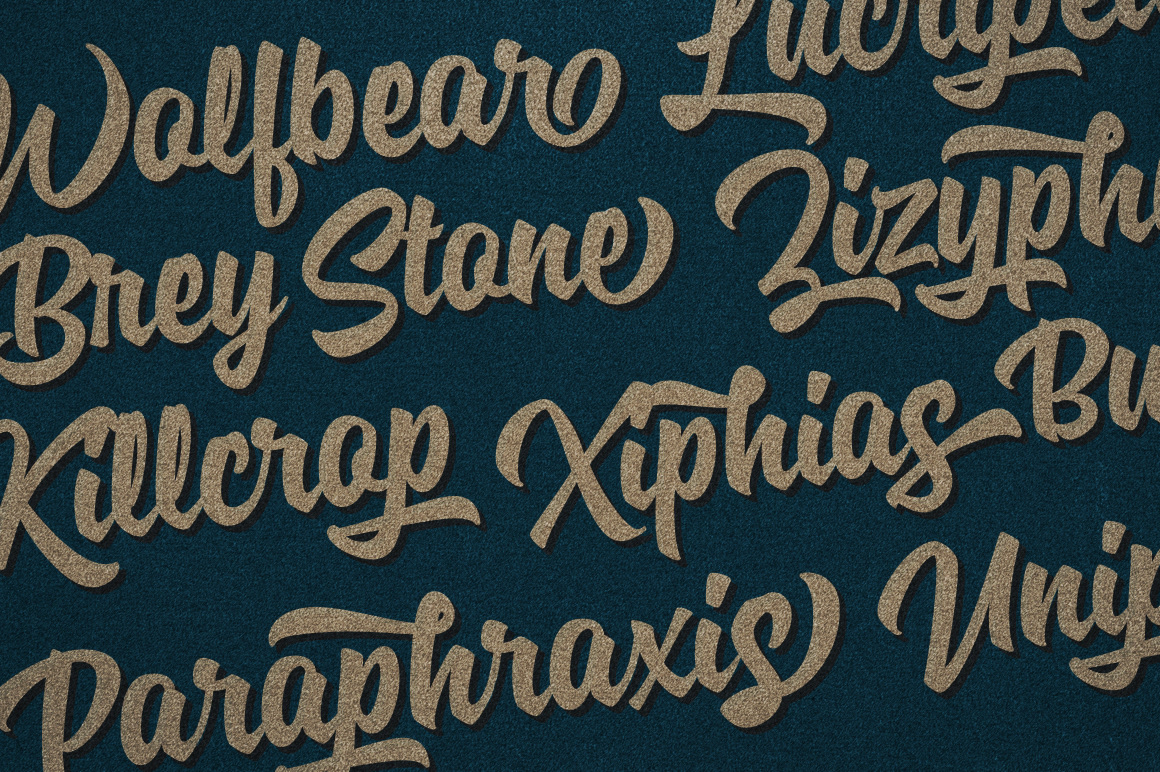
Specta Script with Retro style, this font inspired by retro style and combine with handlettering brush flow. Hope can make easy for your project, example for :logos, handwritten quotes, product packaging, header, poster, merchandise, social media & greeting cards.